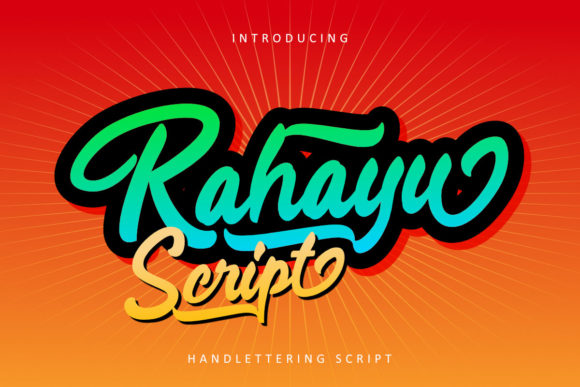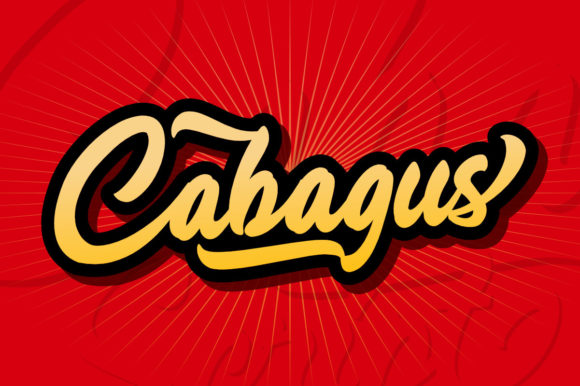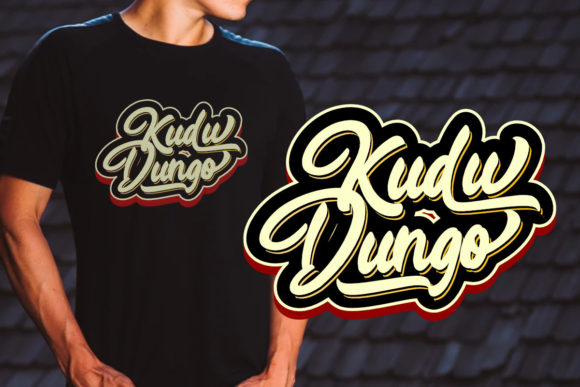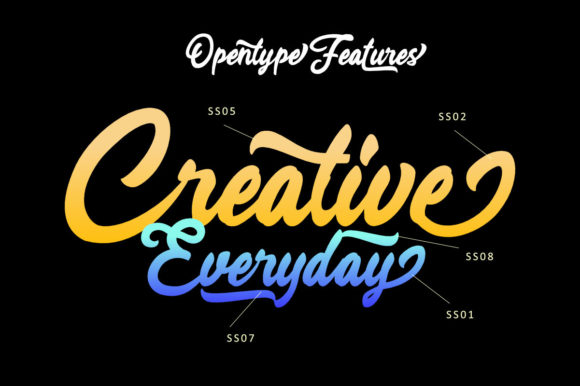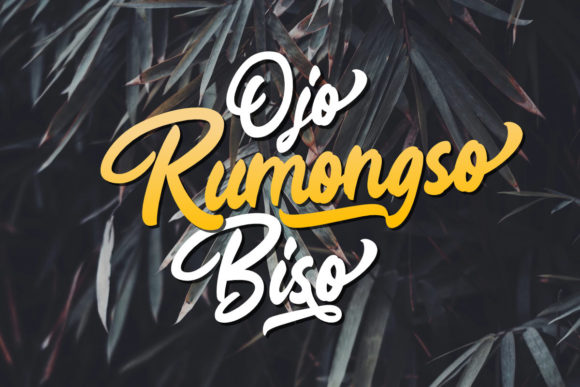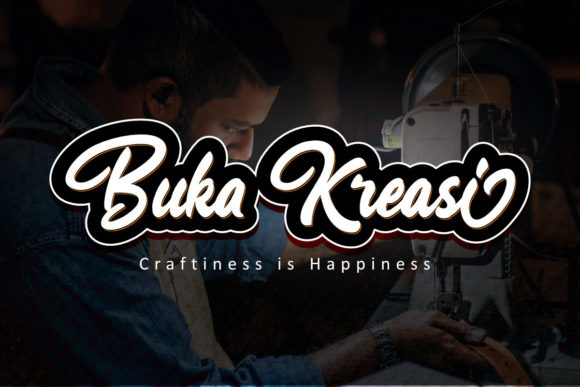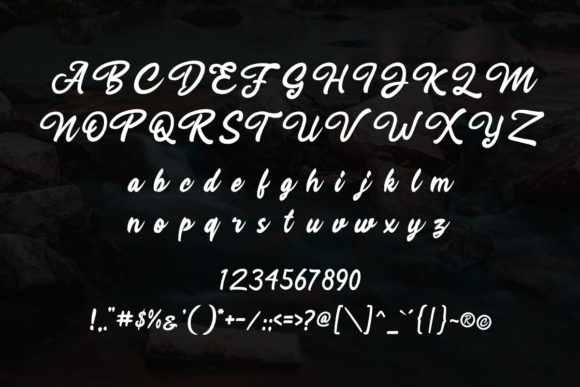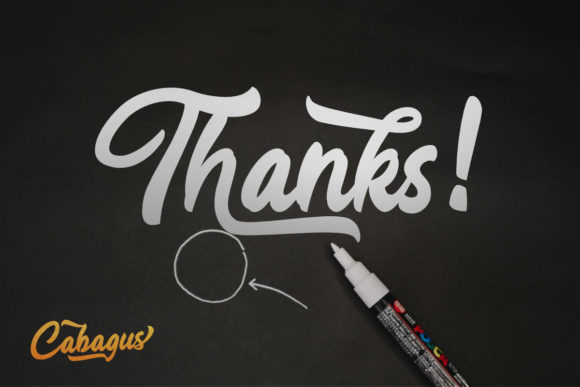
Rahayu Script Font
About Rahayu Script Font
Rahayu Script is a modern bold hand-lettering font with strong style and dramatic movement. Get inspired by its contemporary coolness!